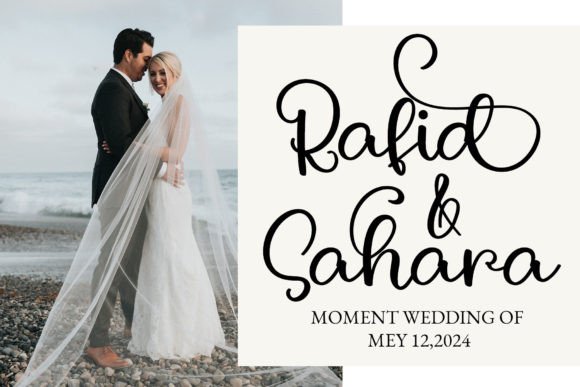
Introducing Behind Font: Elevate Your Designs with Elegance
In the world of typography, fonts play a crucial role in conveying the tone and aesthetic of a design. Whether you’re a graphic designer, a social media influencer, or a DIY enthusiast, finding the right font can make all the difference. If you’re looking for a font that exudes elegance and sophistication, look no further than Behind Font. This magical handwritten font is carefully crafted to add a touch of refinement to your designs, making it perfect for a wide range of creative projects.
The Story Behind Behind Font
Behind Font is more than just a font – it’s a work of art. Created with love and attention to detail, this handwritten font is designed to bring a sense of whimsy and charm to your designs. The brainchild of a talented typographer, Behind Font is the result of hours of meticulous work, pouring over letterforms, and experimenting with different styles. The end result is a font that is both beautiful and functional, making it perfect for a variety of applications.
Key Features of Behind Font
- Handwritten Elegance: Behind Font boasts a beautiful, handwritten aesthetic that adds a touch of sophistication to any design.
- Magical Flair: With its unique letterforms and flowing connections, Behind Font is sure to add a dash of magic to your designs.
- Versatile: Whether you’re creating social media graphics, calligraphy scripts, or DIY projects, Behind Font is the perfect choice.
Uses for Behind Font
Behind Font is an incredibly versatile font that can be used in a variety of contexts. Here are just a few ideas to get you started:
Instagram Graphics
Take your Instagram game to the next level with Behind Font. Use it to create beautiful, eye-catching graphics that showcase your brand’s personality.
Calligraphy Scripts
Add a touch of elegance to your calligraphy scripts with Behind Font. Perfect for DIY projects, wedding invitations, and more.
DIY Projects
Behind Font is perfect for a range of DIY projects, from crafting to scrapbooking. Add a touch of sophistication to your creations with this beautiful font.
Tips for Using Behind Font
To get the most out of Behind Font, here are a few tips to keep in mind:
Experiment with Colors
Behind Font looks stunning in a range of colors. Experiment with different hues to find the perfect match for your design.
Play with Pairings
Behind Font pairs beautifully with a range of other fonts. Try pairing it with a bold sans-serif for a striking contrast.
Pay Attention to Spacing
To ensure your text looks its best, pay attention to spacing. Behind Font looks beautiful with a generous line height and letter spacing.